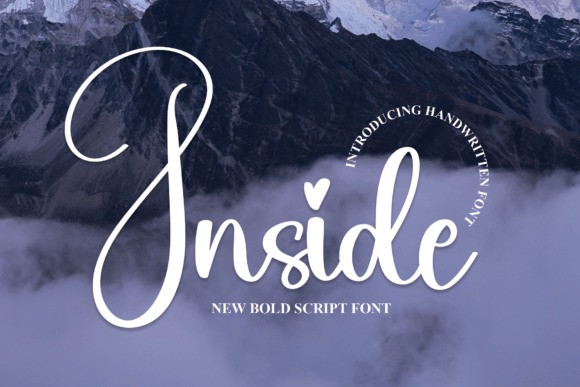
Inside Font
Inside Font, The latest style letters are perfect for wall displays, wedding invitations, social media post logos, advertisements, product packaging, product designs, labels, photography, watermarks, invitations, stationery, and any project that requires handwritten taste.